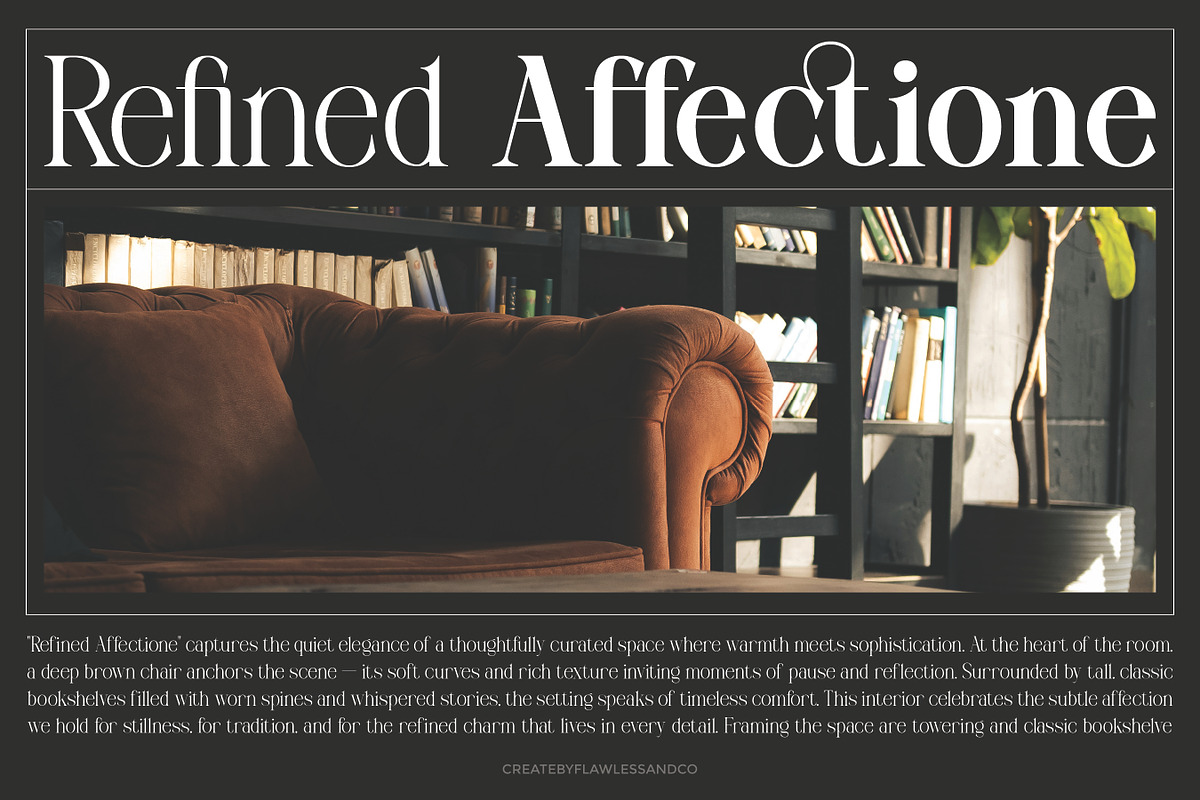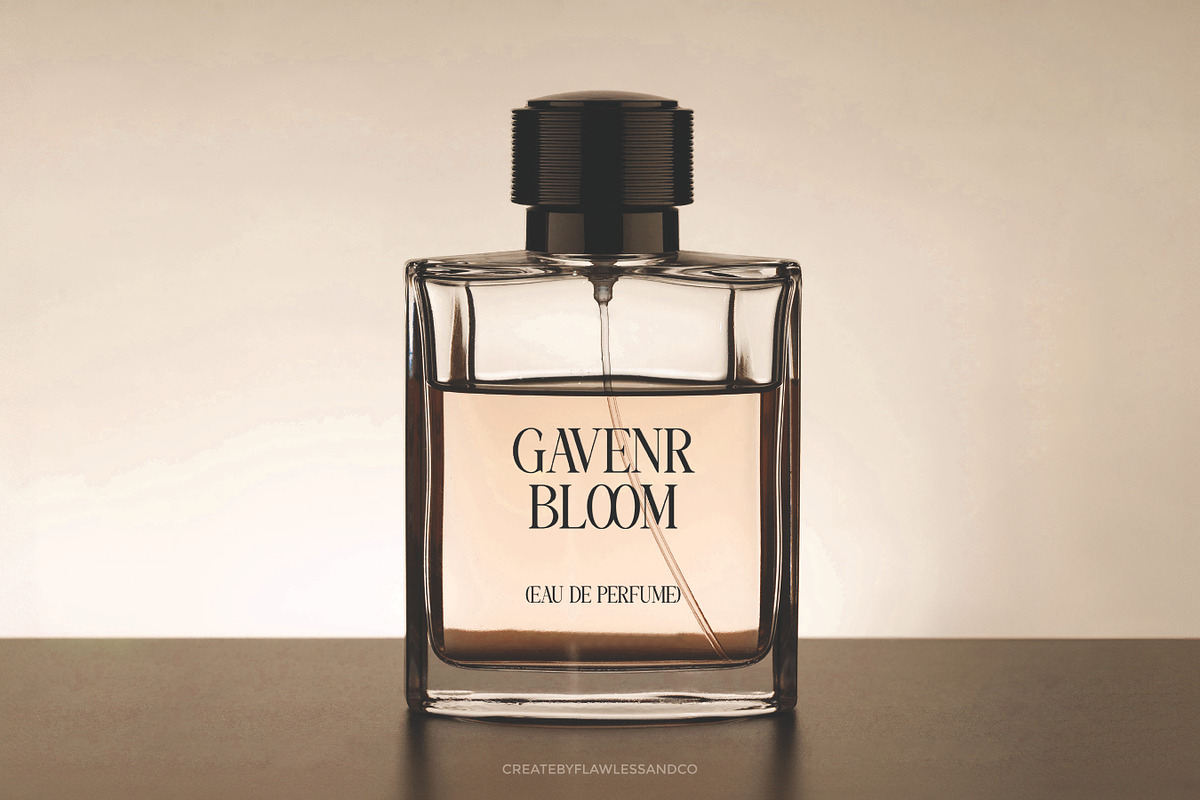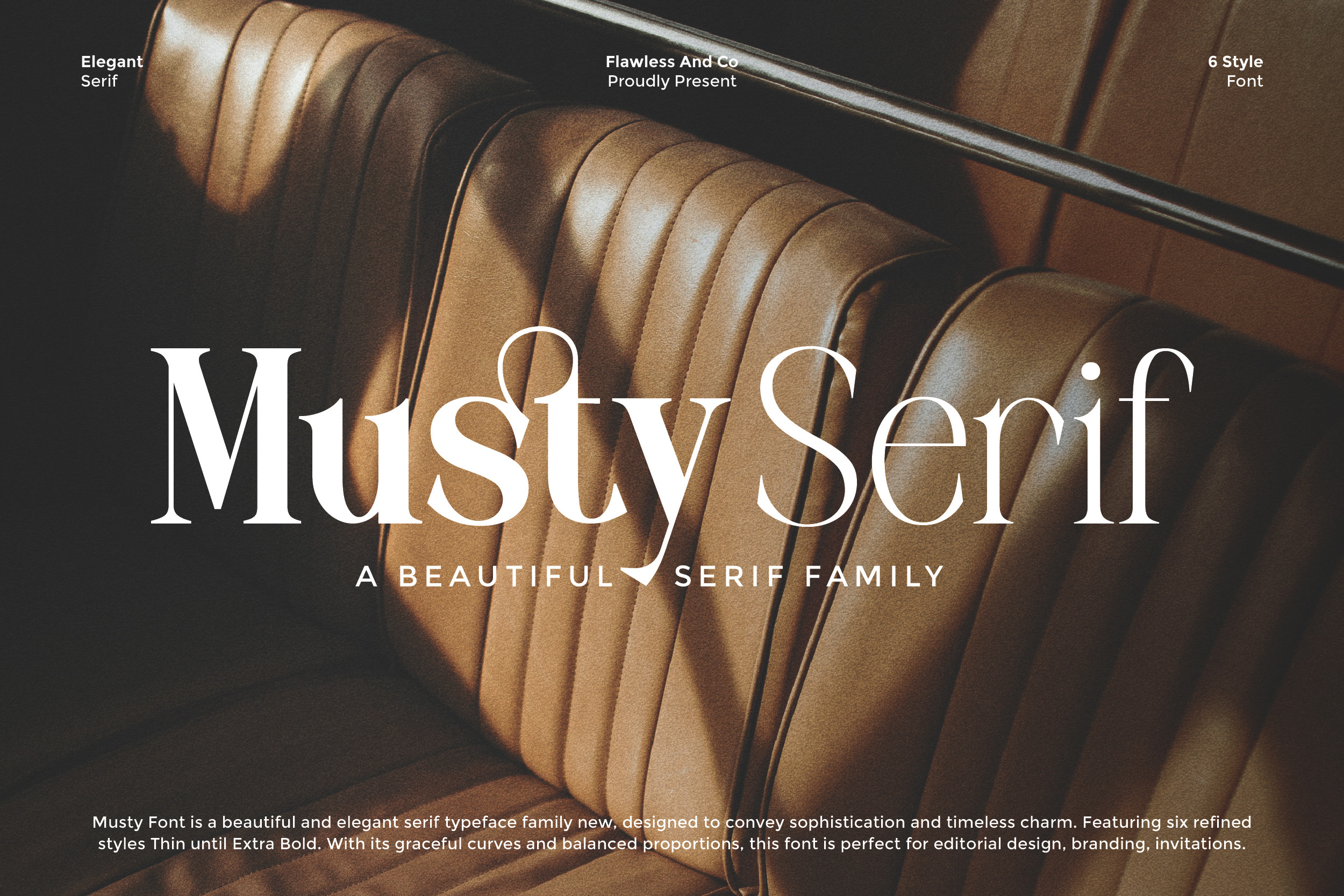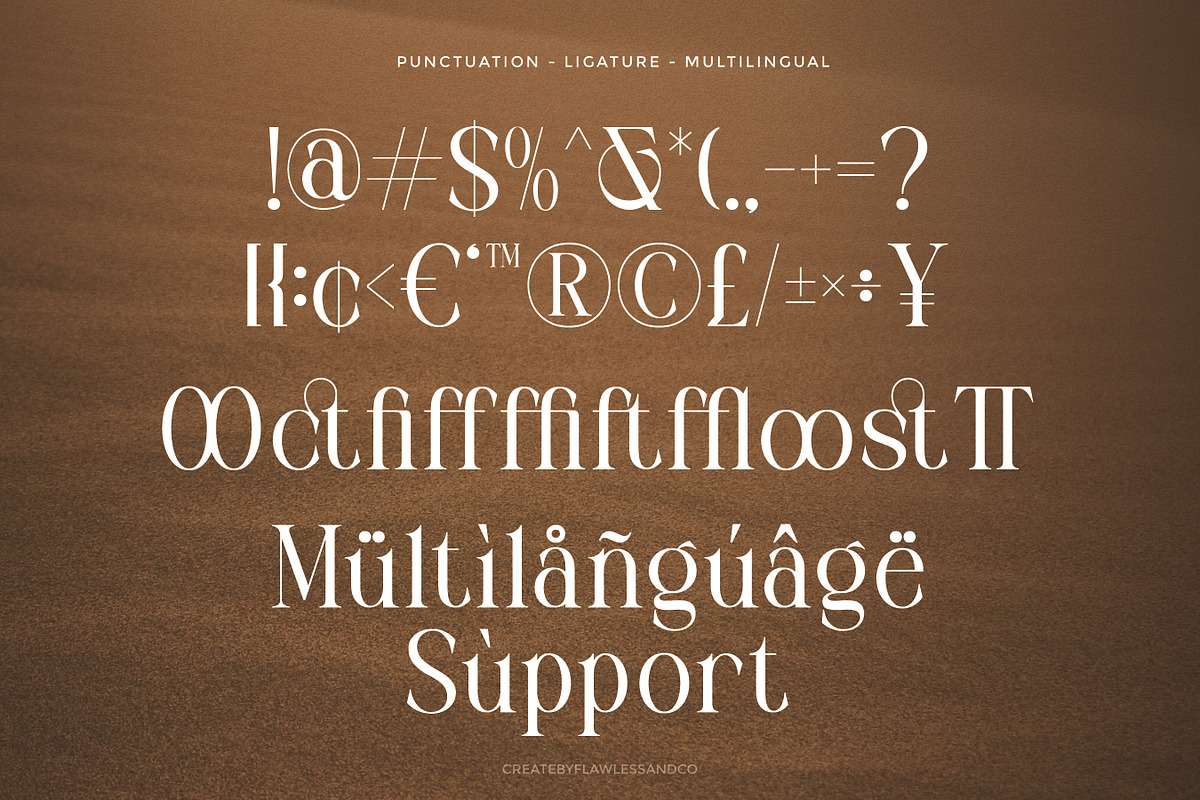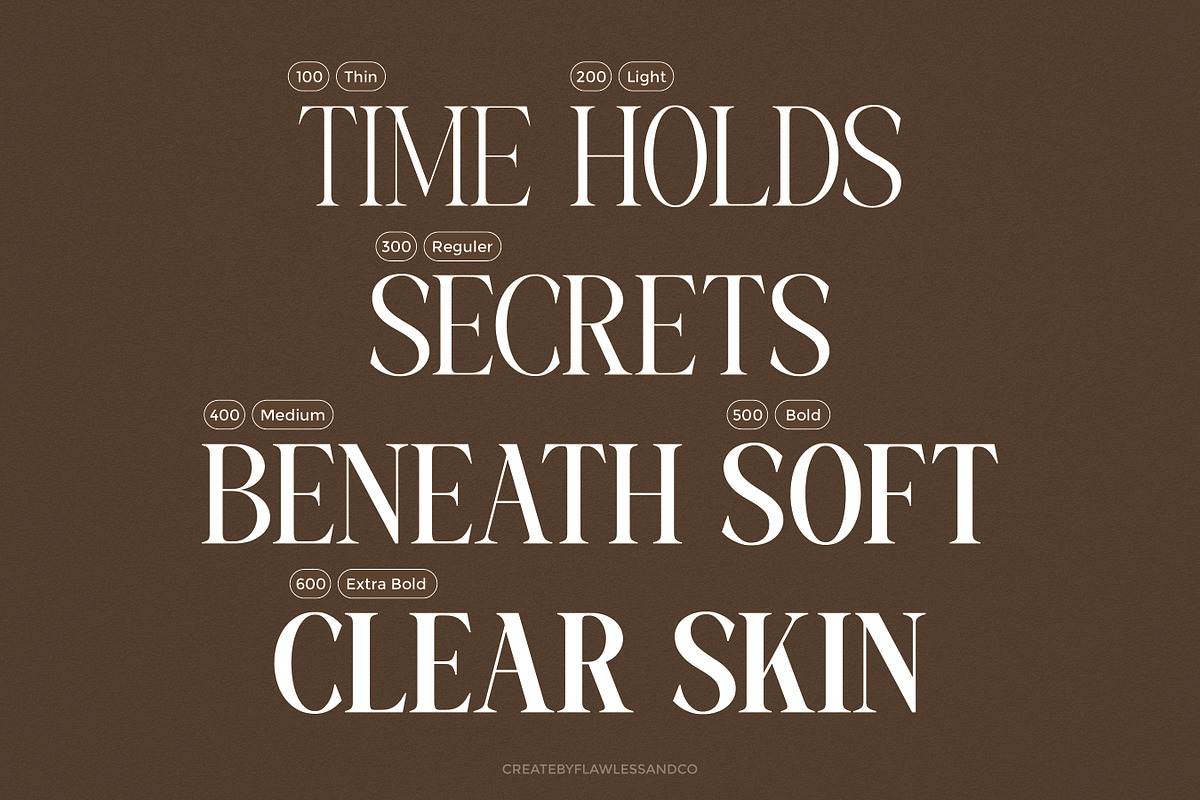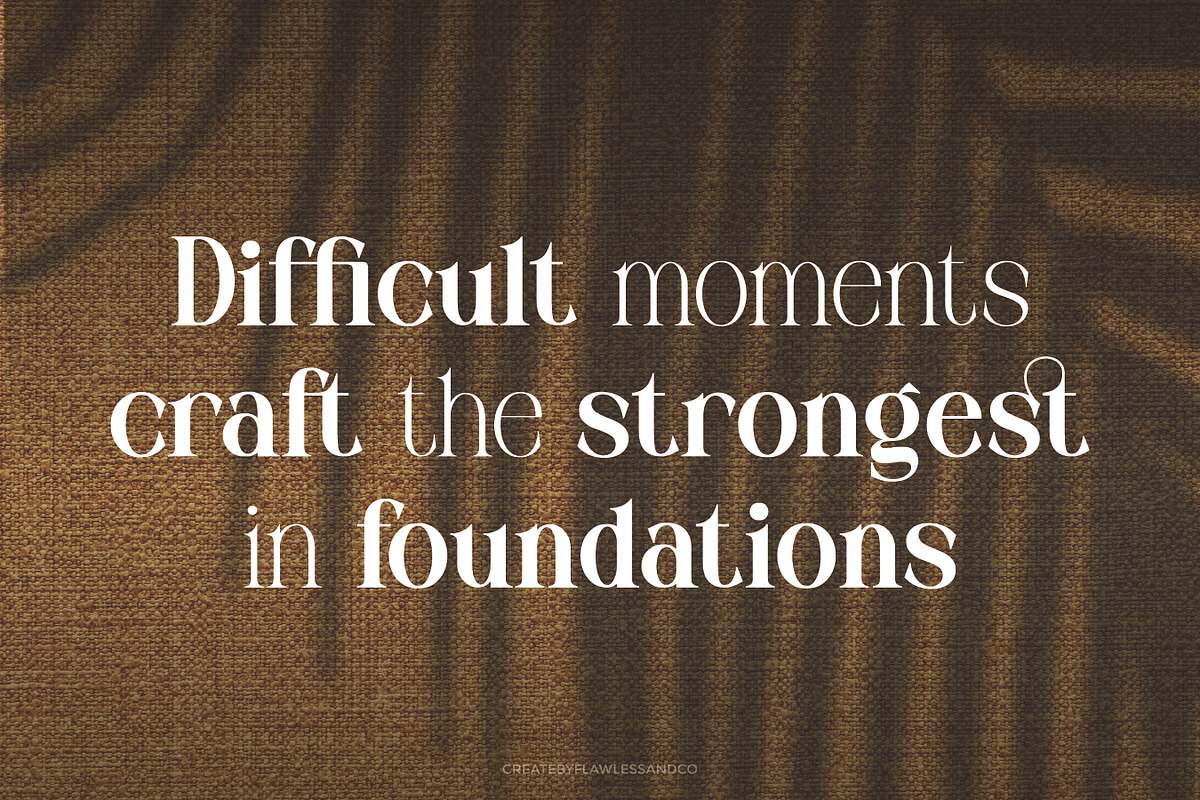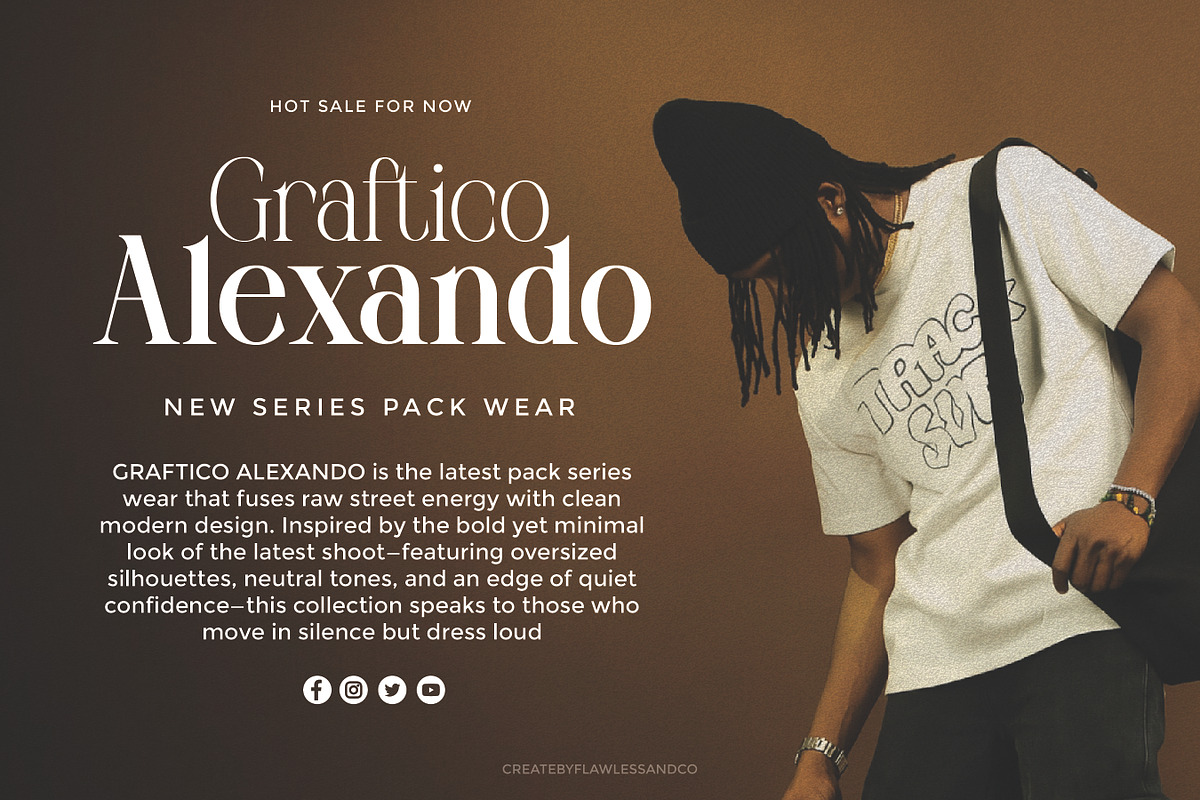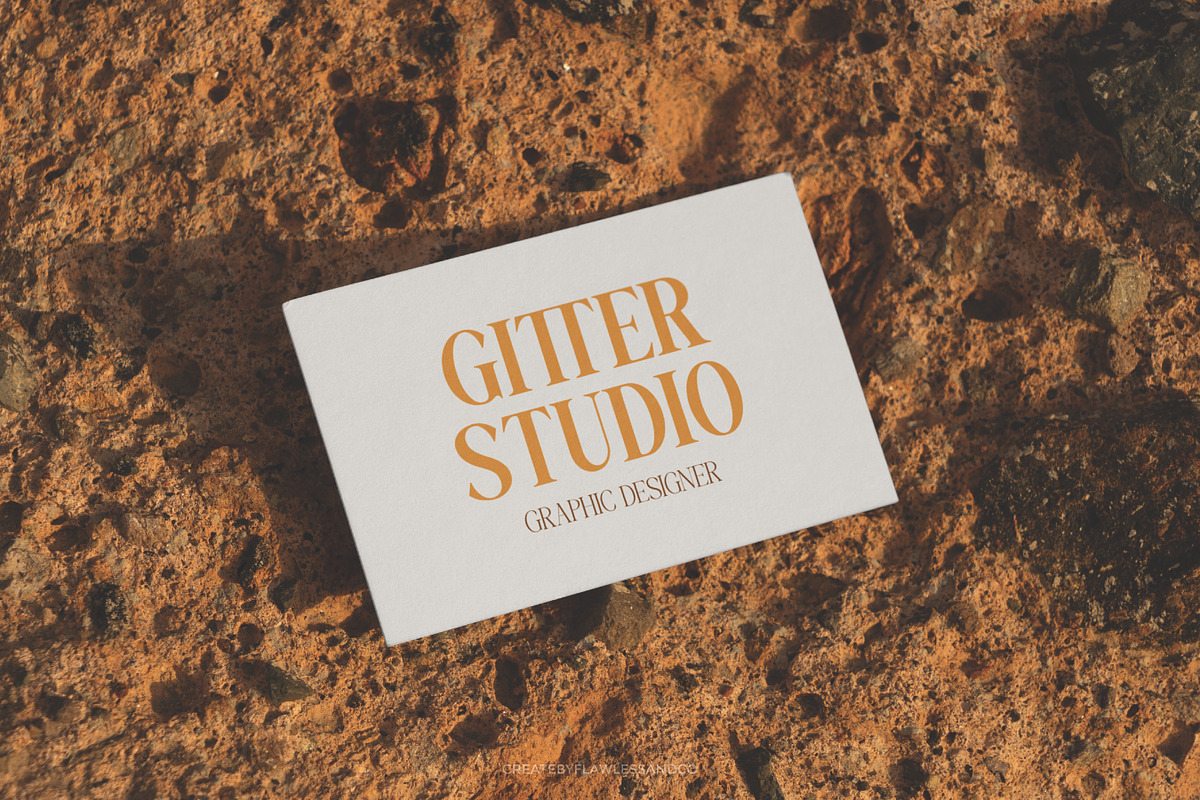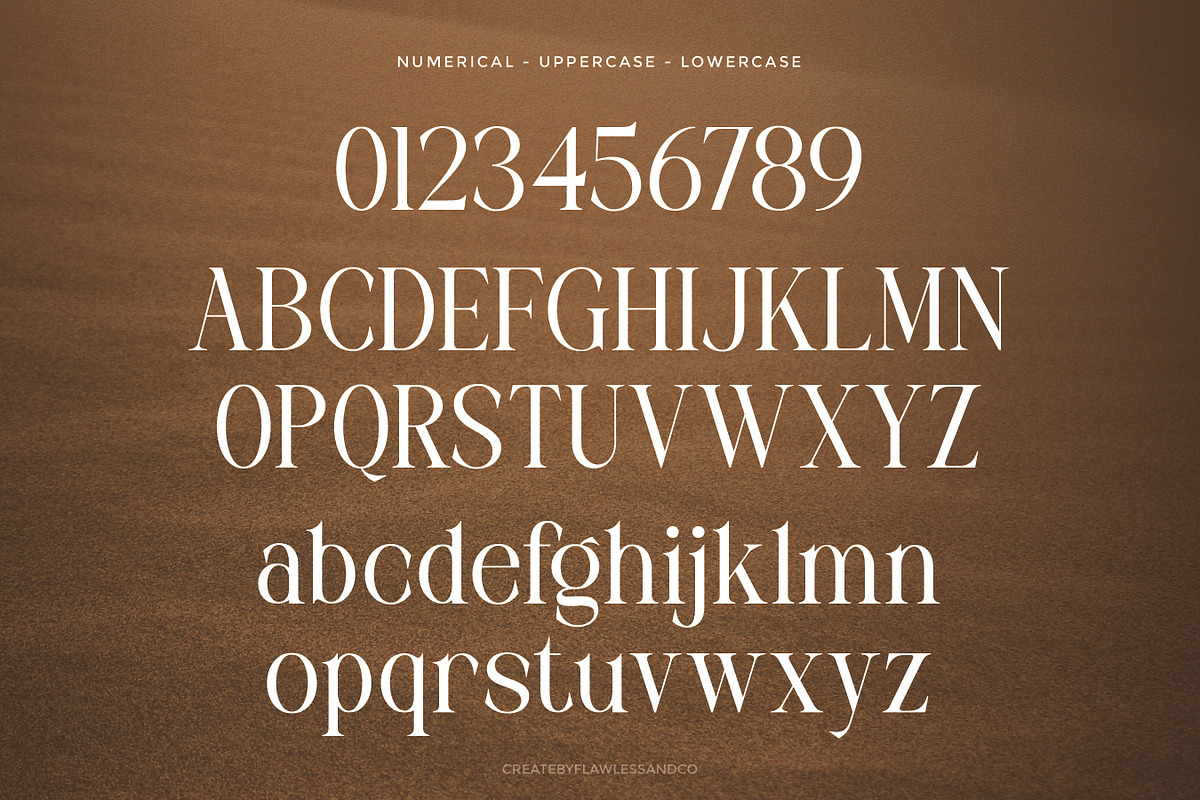
Mustyserif - Family Serif Font
Mustyserif - Serif Family Font
MustySerif is a refined and elegant serif family designed to embody sophistication and timeless appeal. Featuring six versatile styles, from Thin to Extra Bold, this typeface offers graceful curves and perfectly balanced proportions that elevate any design. With its classic yet modern character, MustySerif is the ideal choice for branding, editorial layouts, packaging, and invitations—making every project feel polished and professional.
Who Should Use MustySerif?
MustySerif is designed for visionaries, creators, and professionals who seek timeless beauty in their typography. With its graceful curves and balanced proportions, this font family is perfect for those who want to elevate their designs with elegance and sophistication.
This font is ideal for:
- Fashion & lifestyle brands that want a luxurious and refined identity
- Editorial & magazine designers looking for stylish, readable headlines and body text
- Creative agencies crafting high-end branding and visual identities
- Packaging designers who need a font that exudes premium quality
- Wedding, invitation, and stationery projects that demand timeless charm
- Social media creators who want to maintain a chic and elegant aesthetic
A Must-Have Font for "Brand and Logo" Creators and Designers
MustySerif is more than just a font—it’s a design essential for anyone working in branding and logo creation. With its elegant serif style and versatile family of weights, this font ensures every brand identity feels timeless, sophisticated, and memorable. Whether you’re shaping luxury fashion brands, crafting editorial logos, or building a refined visual identity, MustySerif brings a touch of elegance that elevates every design.
Why Choose MustySerif for "Brand and Logo" Projects?
MustySerif combines beauty, balance, and versatility in one font family—making it the perfect choice for brand and logo projects. Its graceful serif details and refined proportions deliver a professional yet timeless look that adapts seamlessly across industries. From luxury fashion houses to modern startups, MustySerif ensures your brand identity stands out with elegance, confidence, and sophistication. With multiple styles included, it offers endless creative possibilities to craft a logo or branding system that truly resonates.
Suitable For:
- Brand identities and professional logo design
- Editorial layouts and magazine headlines
- Luxury fashion and beauty branding
- Corporate and business presentations
- Elegant wedding invitations & stationery
- Product packaging and premium labels
- Social media graphics and marketing content